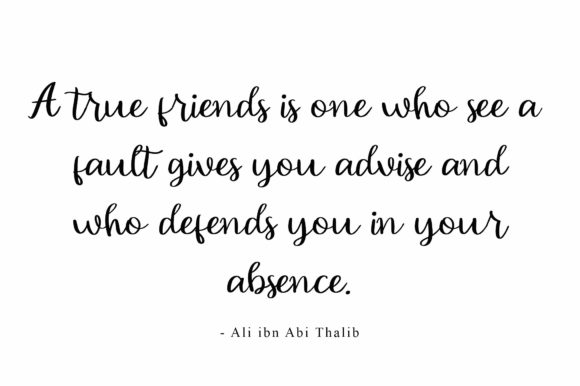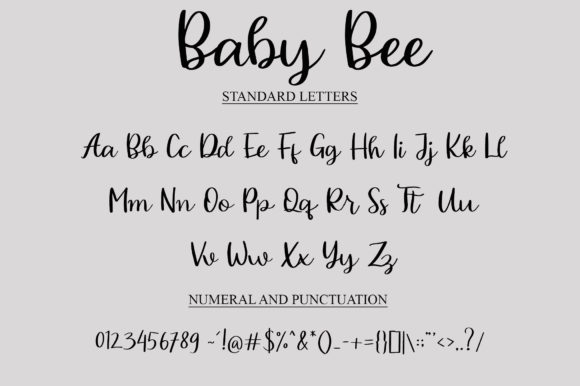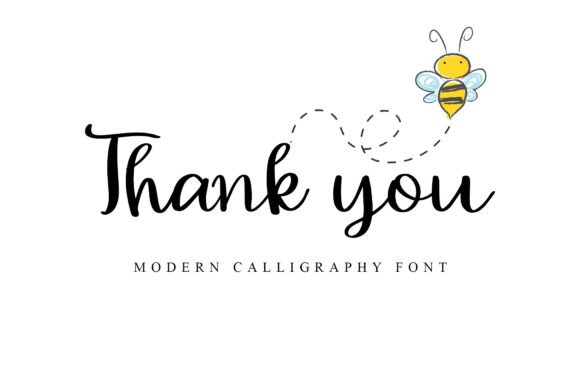
Baby Bee Font: The Magical Script Font for Elegant Creations
Are you a designer, crafter, or DIY enthusiast looking for a font that can add a touch of elegance to your creative projects? Look no further than the Baby Bee Font, a beautiful script font that is sure to turn your ideas into works of art. In this article, we’ll take a closer look at the Baby Bee Font, its features, and how you can use it to elevate your designs and crafts.
What is Baby Bee Font?
Baby Bee Font is a carefully crafted script font that exudes elegance and sophistication. With its flowing lines and delicate curves, this font is perfect for adding a touch of whimsy and charm to your designs. Whether you’re creating social media graphics, crafting DIY projects, or designing calligraphy scripts, Baby Bee Font is the perfect choice.
Features of Baby Bee Font
So, what makes Baby Bee Font so special? Here are just a few of its key features:
- Elegant Script Style: Baby Bee Font features a beautiful script style that is both elegant and playful. Its flowing lines and delicate curves make it perfect for creating eye-catching designs.
- Magical and Whimsical: This font has a touch of magic to it, making it perfect for creating designs that are both whimsical and enchanting.
- Versatile: Baby Bee Font is versatile and can be used for a wide range of creative projects, from social media graphics to DIY crafts.
- Easy to Read: Despite its elegant and cursive style, Baby Bee Font is easy to read, making it perfect for creating designs that need to be both beautiful and legible.
Uses for Baby Bee Font
So, how can you use Baby Bee Font in your creative projects? Here are just a few ideas to get you started:
- Instagram Graphics: Add a touch of elegance to your Instagram graphics with Baby Bee Font. Use it to create eye-catching captions, quotes, and stories that will make your followers swoon.
- DIY Crafts: Baby Bee Font is perfect for DIY crafts, such as making cards, gift tags, and other paper crafts.
- Calligraphy Scripts: If you’re looking for a font to use for calligraphy scripts, Baby Bee Font is a great choice. Its elegant and flowing lines make it perfect for creating beautiful calligraphy pieces.
- Branding and Packaging: Use Baby Bee Font to add a touch of elegance to your branding and packaging. It’s perfect for creating labels, business cards, and other marketing materials.
Tips for Using Baby Bee Font
Here are a few tips for using Baby Bee Font in your creative projects:
- Use it Sparingly: While Baby Bee Font is beautiful, it can be overwhelming if used too much. Use it sparingly to add a touch of elegance to your designs.
- Pair it with Other Fonts: Baby Bee Font pairs well with other fonts, such as sans-serif fonts. Experiment with different font combinations to find the perfect look for your design.
- Experiment with Colors: Baby Bee Font looks great in a variety of colors. Experiment with different colors to find the perfect look for your design.
In conclusion, Baby Bee Font is a beautiful and elegant script font that is perfect for adding a touch of whimsy and charm to your creative projects. With its flowing lines and delicate curves, this font is sure to turn your ideas into works of art. Whether you’re a designer, crafter, or DIY enthusiast, Baby Bee Font is a great choice for any creative project. So why not give it a try and see the magic for yourself?